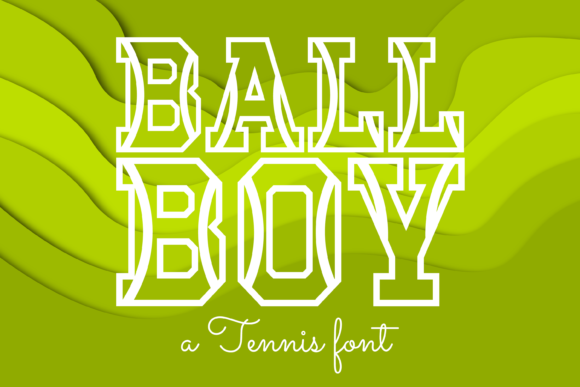
Introduction to Ball Boy Font
Ball Boy is an incredibly cool decorative font.
Whether you use it for custom designs, DIY crafts, or just any creation that requires a lovely touch, this font will be an amazing choice .